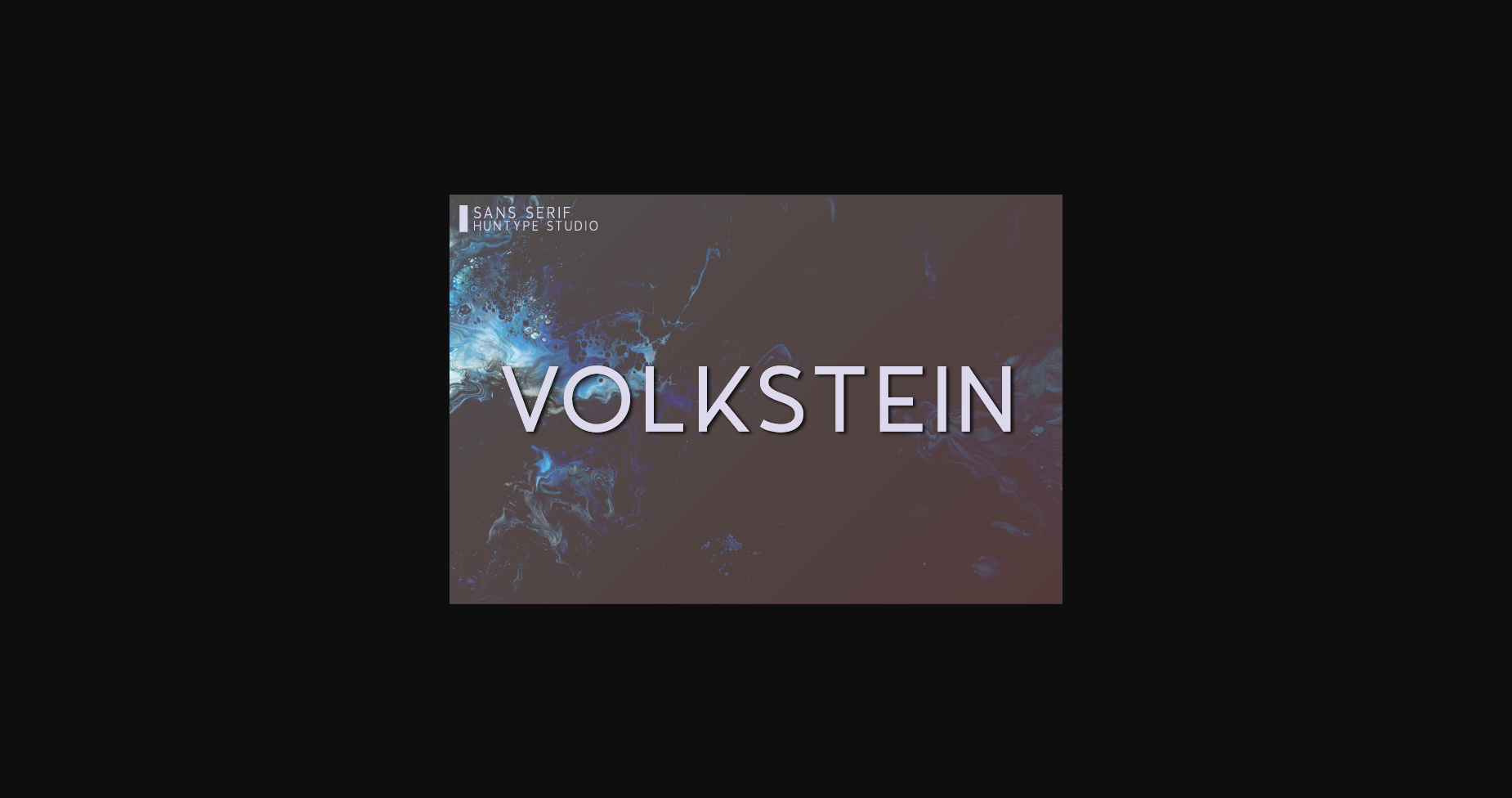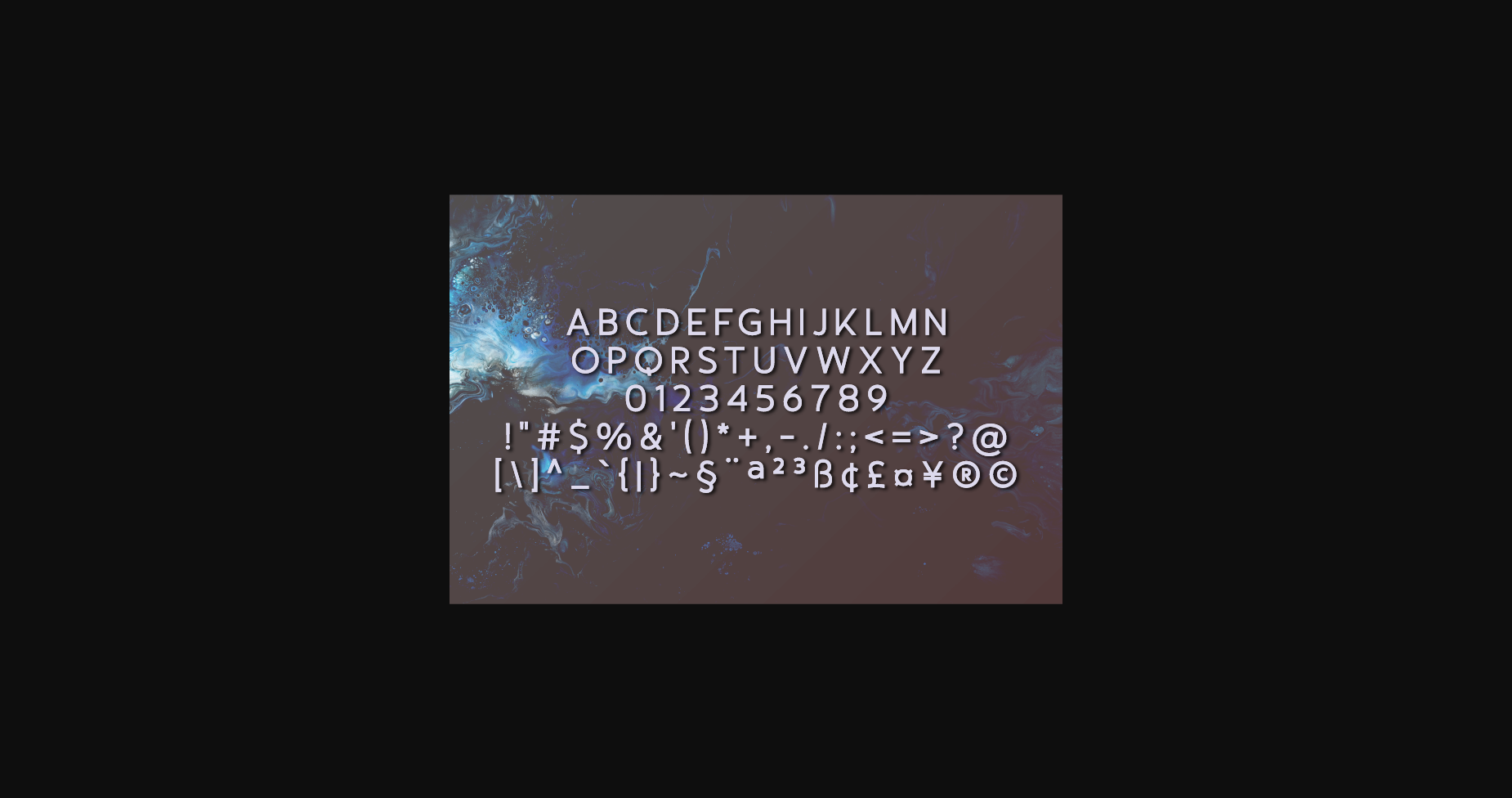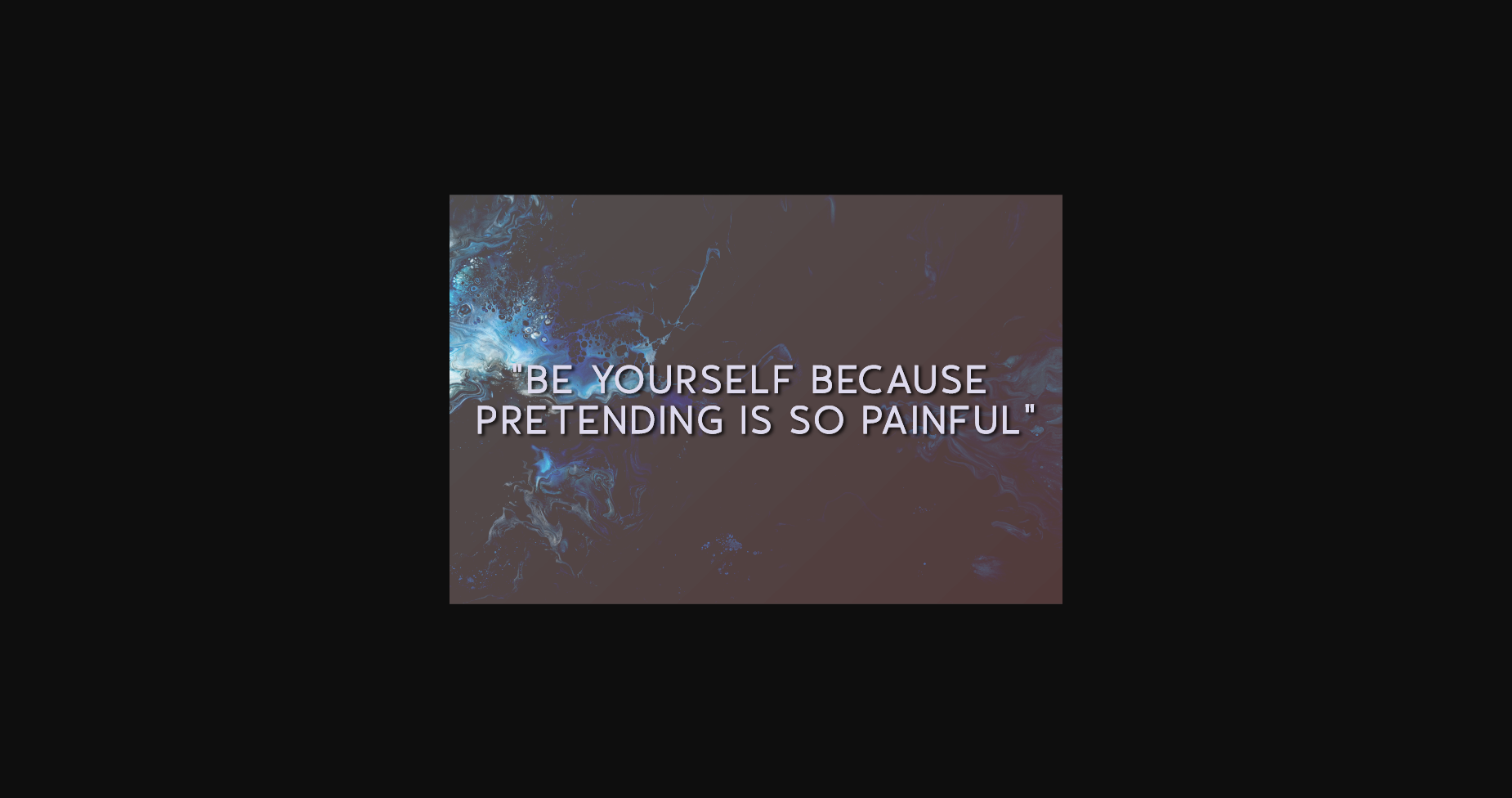
About Volkstein Font
Volkstein is a thin lettered and simple sans serif font. With smooth and clean lines, this font works beautifully for logos, branding, and web headings.